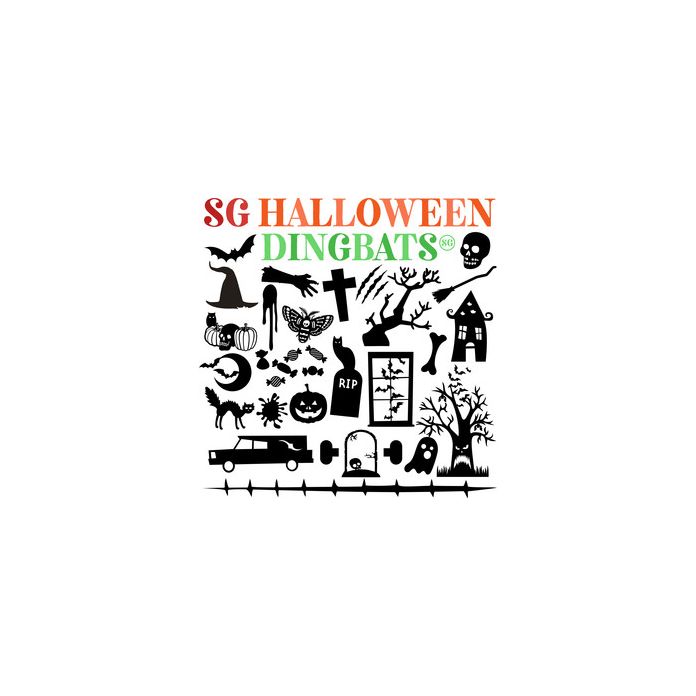
sg halloween dingbats font
This fun dingbat font has 26 Halloween icons that you can type + cut. For ideas and inspiration visit my website at www.sophiegallo.com or visit my Facebook page at www.facebook.com/sgallodesign